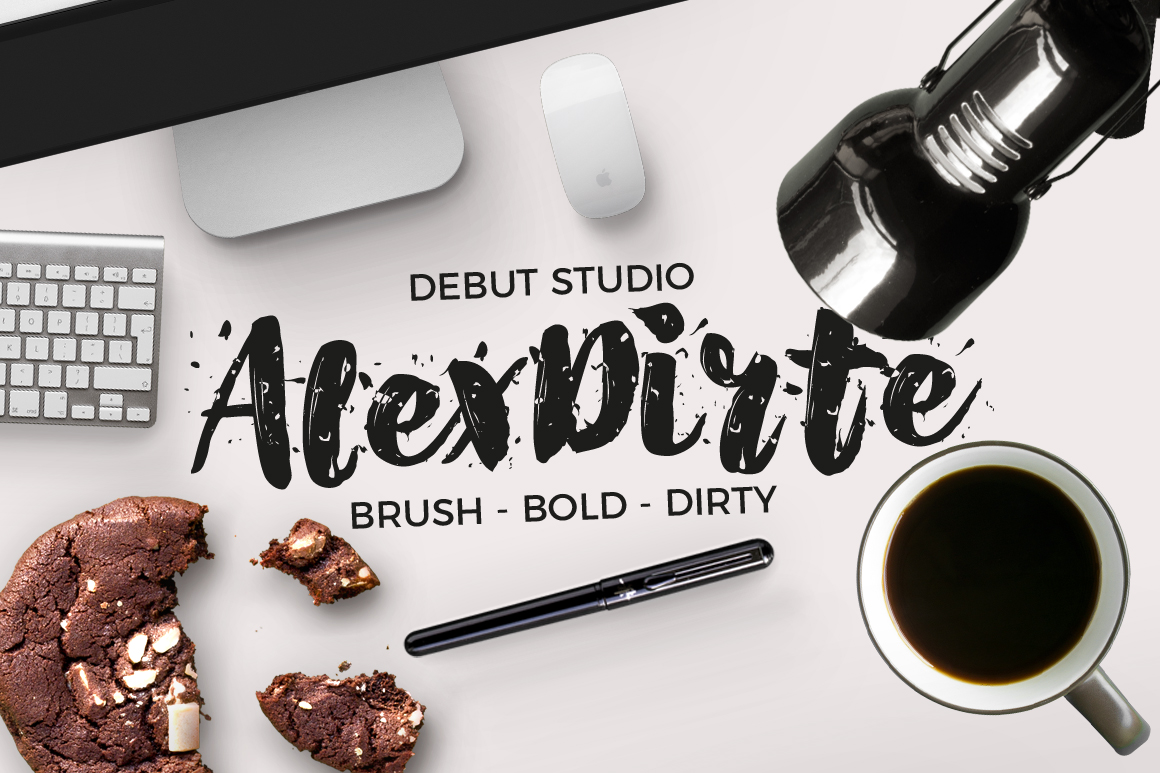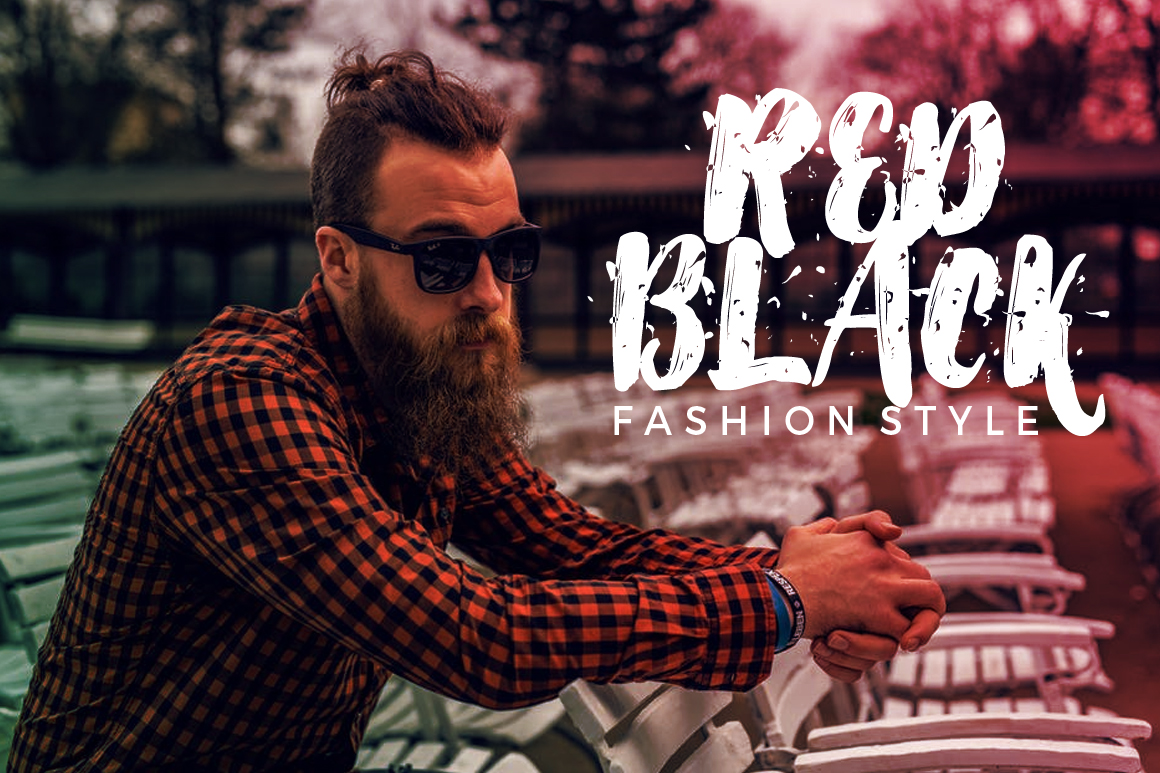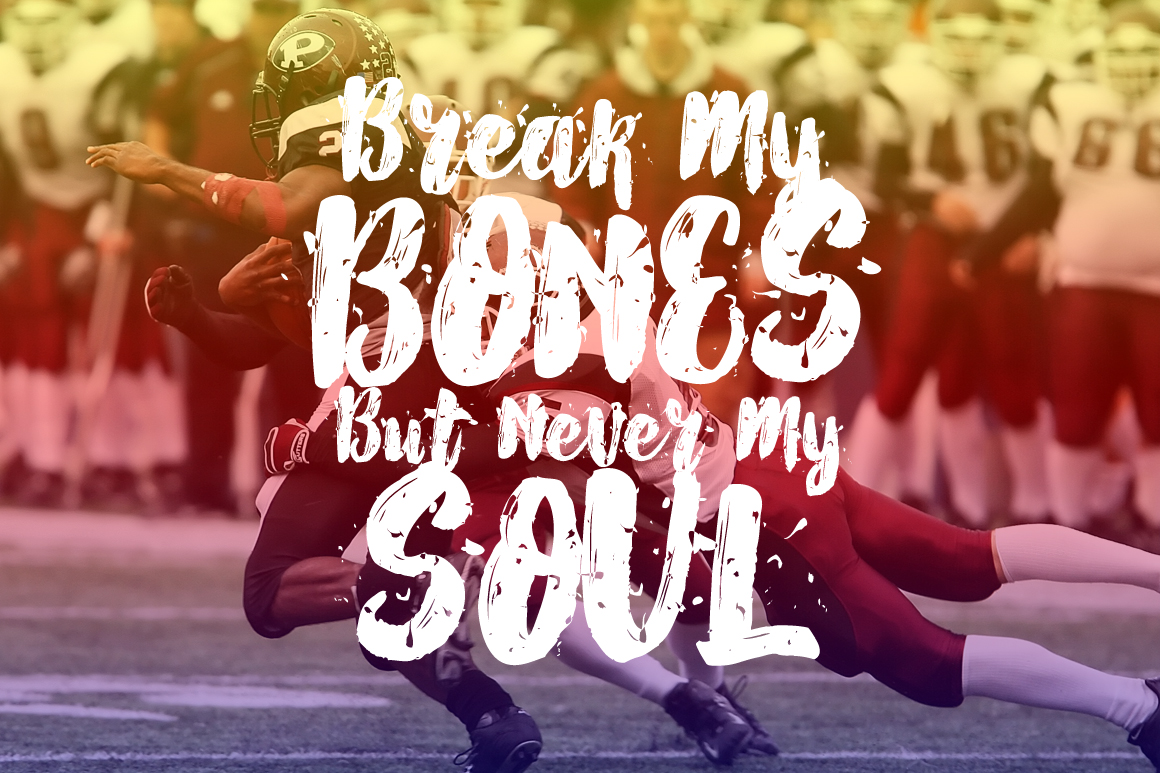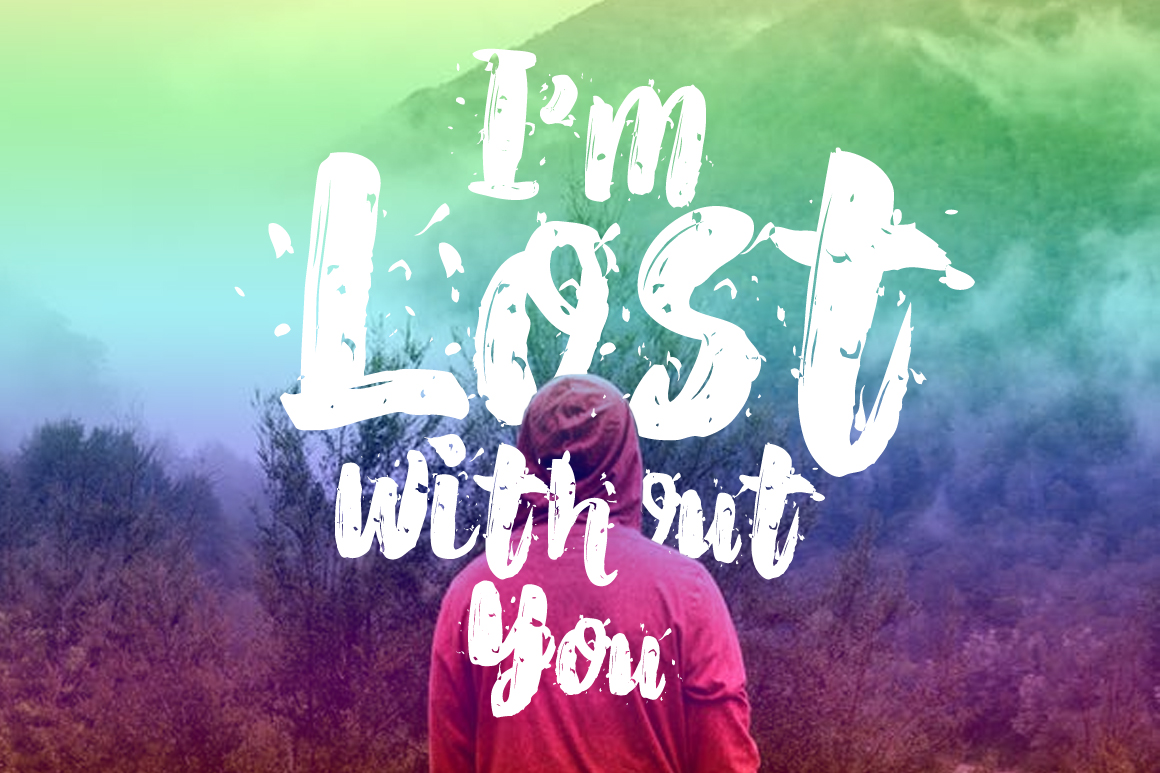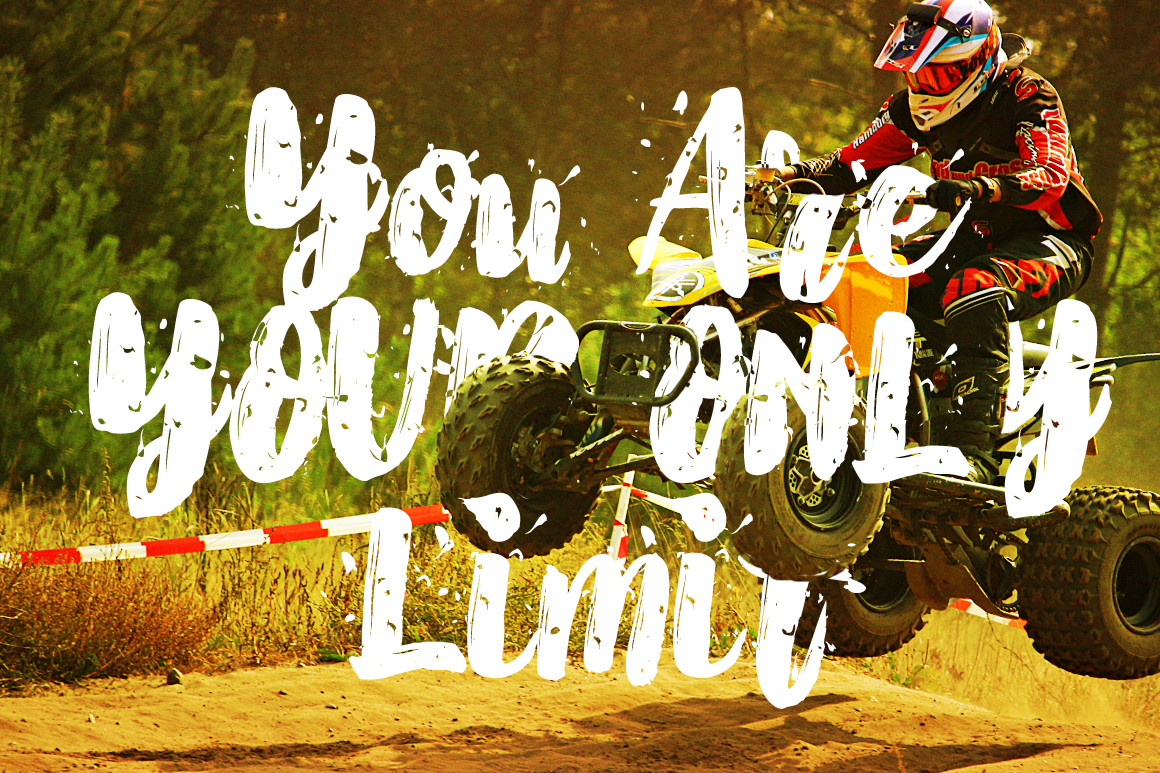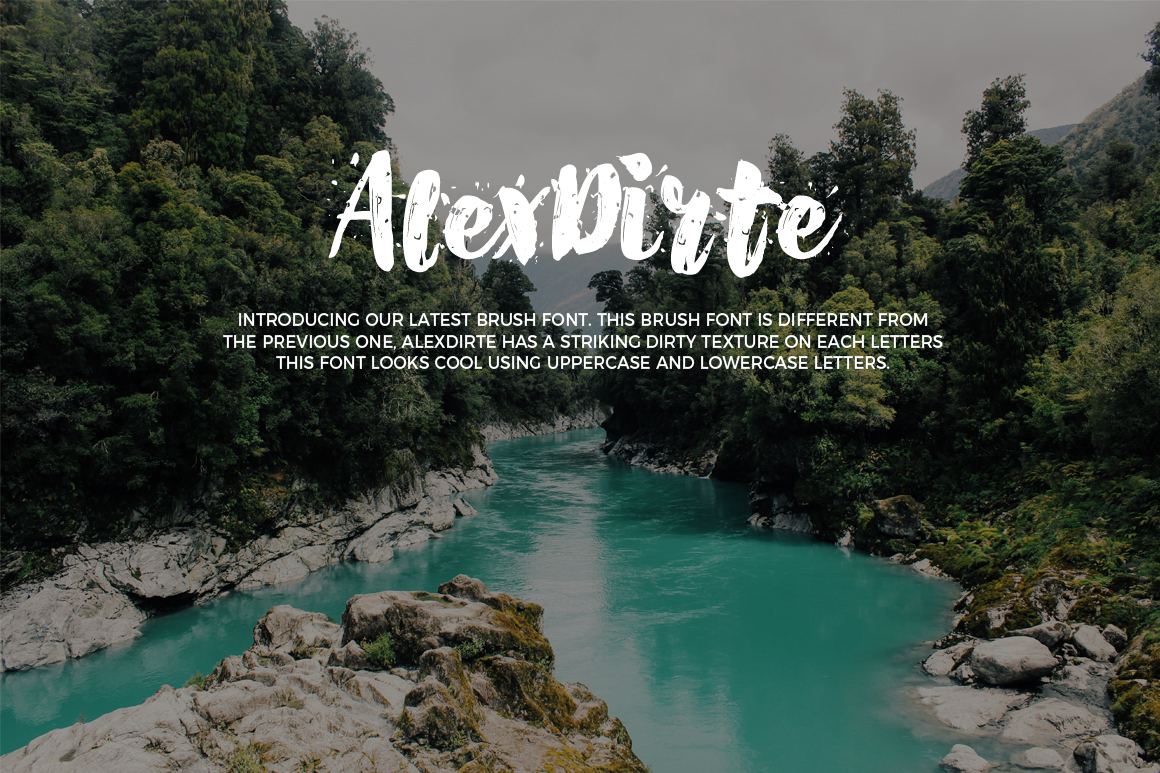
AlexDirte Font
About AlexDirte Font
This set of 2 stunning brush fonts consists out of AlexDirte Brush and AlexDirte Slant Brush.
Each letter has a dirty gritty texture giving it a rough look and feel.